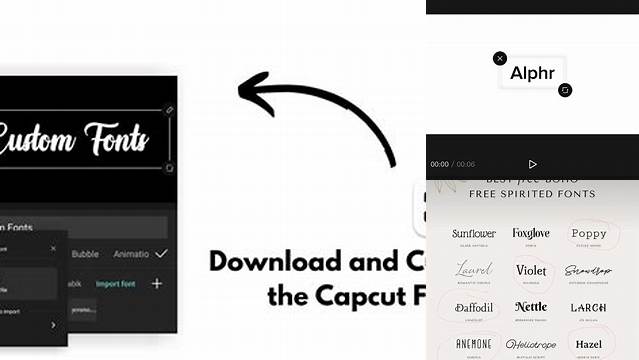
CapCut Fonts: Free Downloads To Elevate Your Edits
Hey guys! Are you looking to make your CapCut videos stand out? One of the easiest ways to do that is by using awesome fonts. The right font can completely transform your video, adding personality, style, and a professional touch. In this article, we're going to dive deep into the world of fonts for CapCut, showing you where to find them, how to install them, and even give you some killer font recommendations. Let's get started and make your videos pop!
Why Fonts Matter in Video Editing
When it comes to video editing, fonts are more than just text – they're a crucial element in visual communication. Think about it: the font you choose can set the tone and mood of your video. A playful, bubbly font might be perfect for a children's video, while a sleek, modern font could be ideal for a tech tutorial. The right font grabs your audience's attention, enhances your message, and makes your content more engaging.
Choosing the right font is like picking the perfect outfit for an event. You wouldn't wear a tuxedo to a beach party, right? Similarly, you need to select fonts that match the theme and style of your video. Using a consistent font style throughout your video helps maintain a professional look and feel. Imagine watching a video where the fonts keep changing every few seconds – it would be distracting and take away from the message. Consistency builds credibility and helps viewers focus on what you're saying.
Fonts also play a significant role in readability. A fancy, ornate font might look beautiful, but if your audience can't easily read it, what's the point? Clear, legible fonts ensure that your message is conveyed effectively. Consider the size and placement of your text as well. Overlapping text or fonts that are too small can make your video look cluttered and unprofessional. Think of fonts as the voice of your video. Just like a clear and articulate speaker, a well-chosen font speaks volumes about the quality of your content.
Moreover, fonts can reinforce your brand identity. If you're creating videos for a business or personal brand, using a consistent set of fonts across all your content can help build recognition. Think about big brands like Nike or Apple – their typography is instantly recognizable. By using specific fonts consistently, you create a visual signature that viewers will associate with your brand. This consistency helps build trust and reinforces your professional image. So, fonts aren't just about aesthetics; they're a powerful branding tool that can set you apart from the competition.
For a more curated selection, check out Font Squirrel. Font Squirrel focuses on high-quality, commercially licensed fonts, which means you can use them in your projects without worrying about legal issues. They also have a handy Font Identifier tool that lets you upload an image of a font and find out what it is – super useful if you've seen a font you love but don't know the name. Font Squirrel is a great option if you want peace of mind and access to professionally designed fonts.
Don't forget about Creative Fabrica. While they offer a lot of premium fonts, they also have a section dedicated to freebies. Creative Fabrica's free fonts are often part of limited-time promotions, so it's worth checking back regularly to see what's new. The quality is generally top-notch, and you might just stumble upon your next favorite font. These websites are your best friends when it comes to expanding your font library for CapCut.
So there you have it, guys! Everything you need to know about fonts for CapCut. We've covered why fonts matter, where to find free fonts, how to install them, top font recommendations, and tips for using fonts effectively. By mastering the art of typography, you can transform your videos from good to great. Remember, the right font can add personality, style, and a professional touch to your content, making it more engaging and memorable for your audience. So go ahead, experiment with different fonts, and unleash your creativity in CapCut. Happy editing!